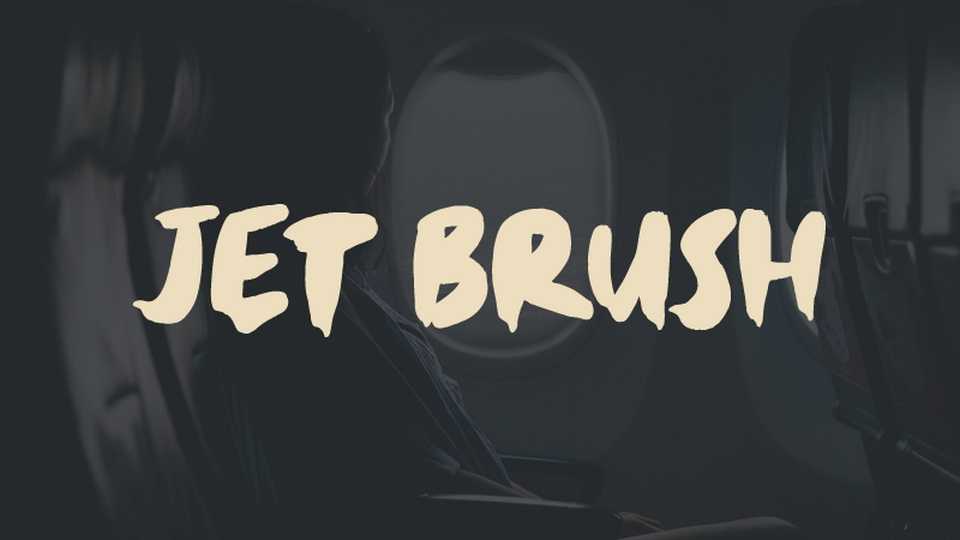
Download Jet Brush font, a bold hand painted script with a natural look. Jet Brush font is suitable for crafts, posters, t-shirt prints, social media and more.
Designer: Ali Hamidi